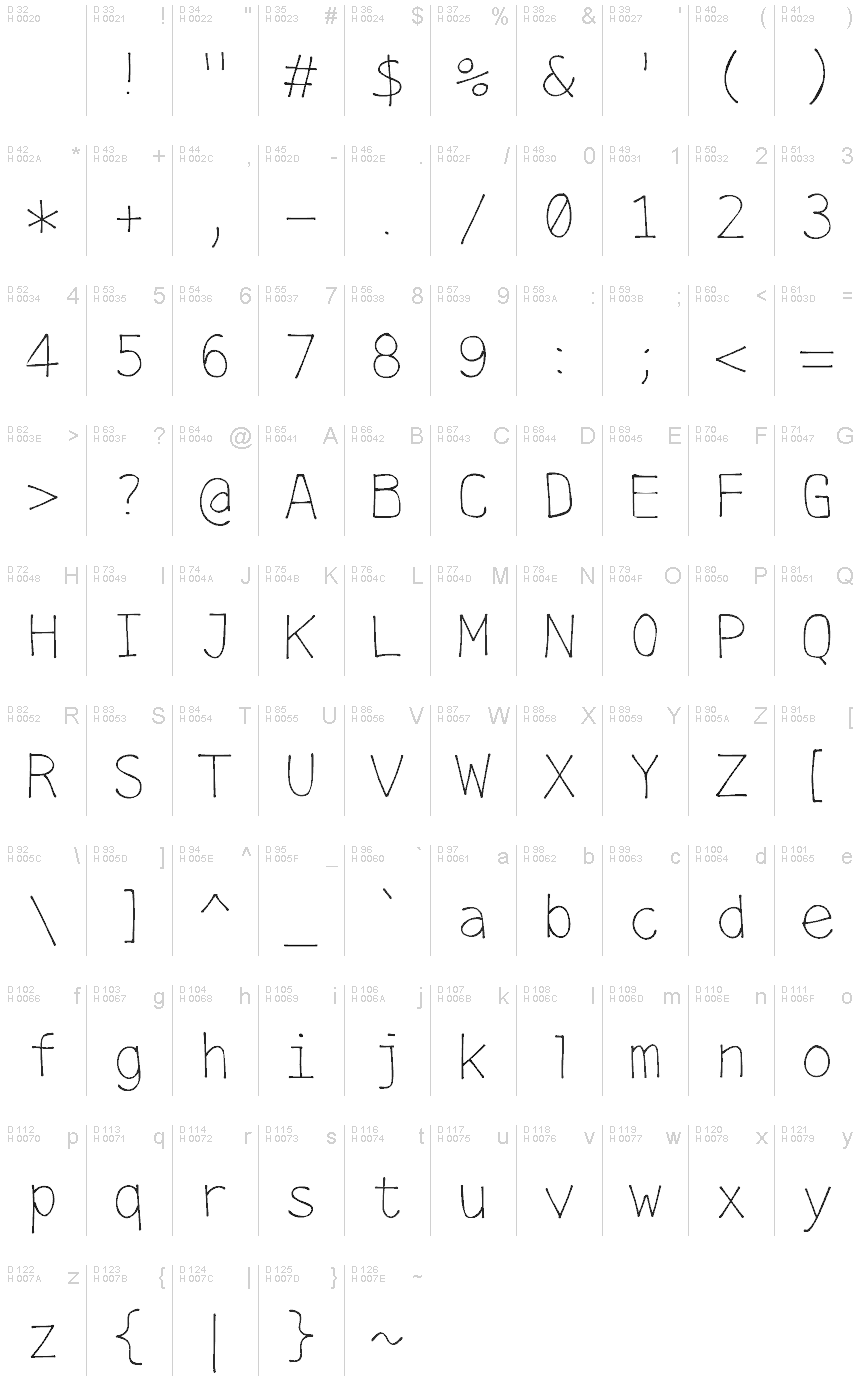
menlotus
Menlotus, a captivating handwritten font created by Daisy Mason, offers a delightful blend of the familiar Menlo family and a charming human touch. With its organic, fluid strokes and delicate flourishes, this font exudes a sense of warmth and personality, making it a standout choice for projects seeking a personalized, artisanal aesthetic.
The font's distinctive character is evident in its subtle imperfections and unique character shapes, lending a handcrafted quality that sets it apart from more rigid, geometric designs. Menlotus' versatility shines through, making it a versatile option for a wide range of applications, from editorial layouts to branding and packaging.
Menlotus' versatility and aesthetic appeal make it an ideal choice for projects seeking to convey a sense of authenticity and human connection, whether in the realm of digital or print design. Its ability to add a personal touch to any design project makes it a valuable asset for creatives seeking to cultivate a warm, welcoming atmosphere.
The font's distinctive character is evident in its subtle imperfections and unique character shapes, lending a handcrafted quality that sets it apart from more rigid, geometric designs. Menlotus' versatility shines through, making it a versatile option for a wide range of applications, from editorial layouts to branding and packaging.
Menlotus' versatility and aesthetic appeal make it an ideal choice for projects seeking to convey a sense of authenticity and human connection, whether in the realm of digital or print design. Its ability to add a personal touch to any design project makes it a valuable asset for creatives seeking to cultivate a warm, welcoming atmosphere.